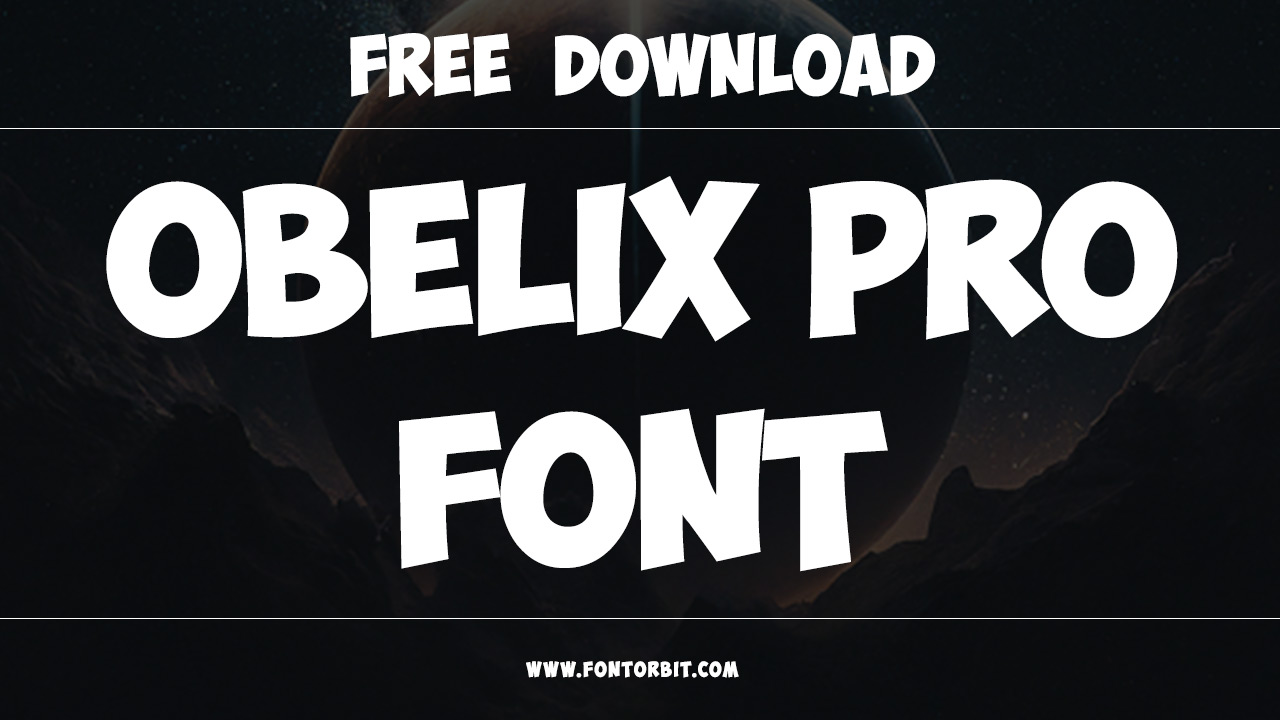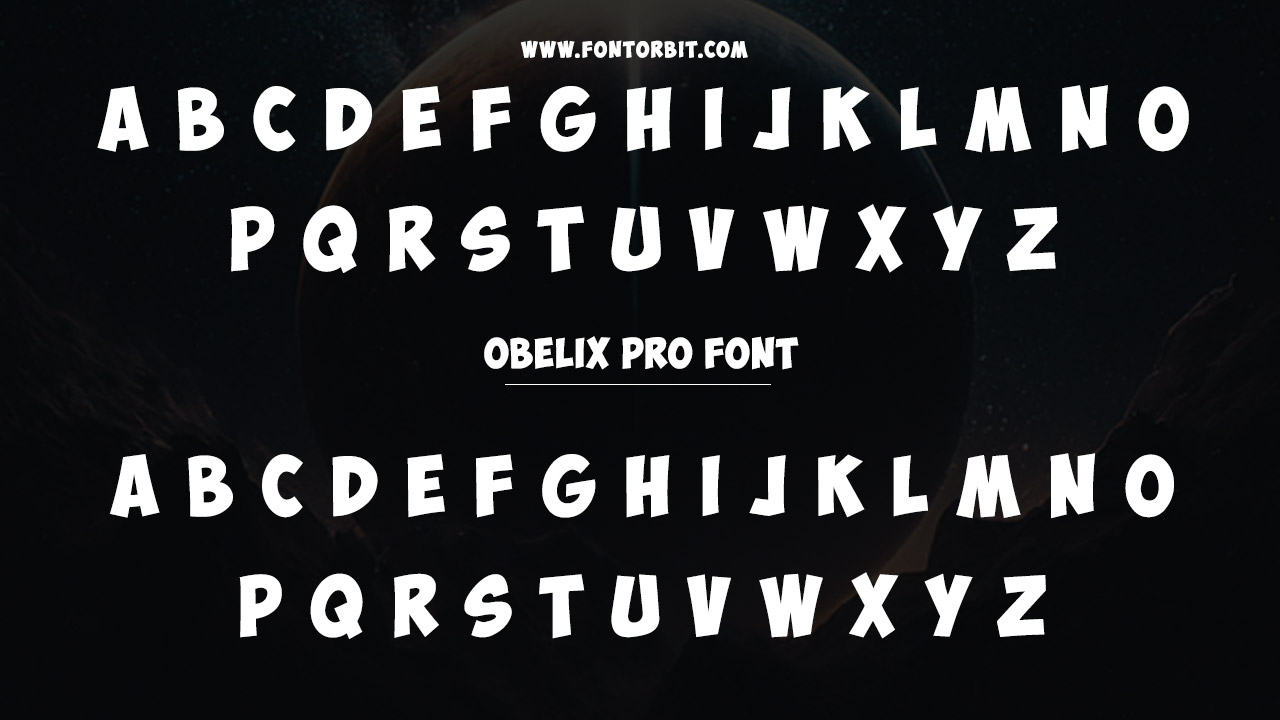
Typography plays a crucial role in branding, influencing how your audience perceives your message. If you’re considering a high-quality comic font that adds personality and uniqueness, Obelix Pro Font might be the perfect font for your design project. Created by Valentin Antonov, this handwritten font is known for its bold and playful aesthetics, making it a popular choice for fun designs, logos, and printed materials.
The Obelix Pro Font Family
The Obelix Pro Font Family comes in multiple styles, including:
- Obelix Pro Regular
- Obelix Pro Italic
- Obelix Pro Bold Font
- Obelix Pro Bold Italic
- Obelix Pro Broken Font
Character Map And Special Features
Obelix Pro includes uppercase and lowercase letters, along with special characters, spacing modifier letters, and mathematical operators. Its extensive character map supports cyrillic characters, making it a suitable choice for multi-language projects.
Why Choose Obelix Pro For Your Design Projects?
- Perfect for Logos – Obelix Pro’s bold and fun appeal makes it ideal for branding and cartoon-style logos.
- Great for Printed Materials – It stands out on posters, flyers, and book covers.
- Decorative Fonts Appeal – If you want a fancy, eye-catching typeface, Obelix Pro fits the bill.
- Ideal for Fun Designs – Its bold and lively nature makes it a go-to option for playful, engaging designs.
Final Thoughts
2.Does Obelix Pro Font Support Multiple Languages?
Yes, it includes cyrillic characters along with uppercase and lowercase letters for multilingual support.
4.Is Obelix Pro A Script Or Decorative Font?
Obelix Pro is a decorative font with a fancy, cartoon-like style.
7.Where Can I Use Obelix Pro Font?
You can use it for logos, posters, fun designs, printed materials, and branding.